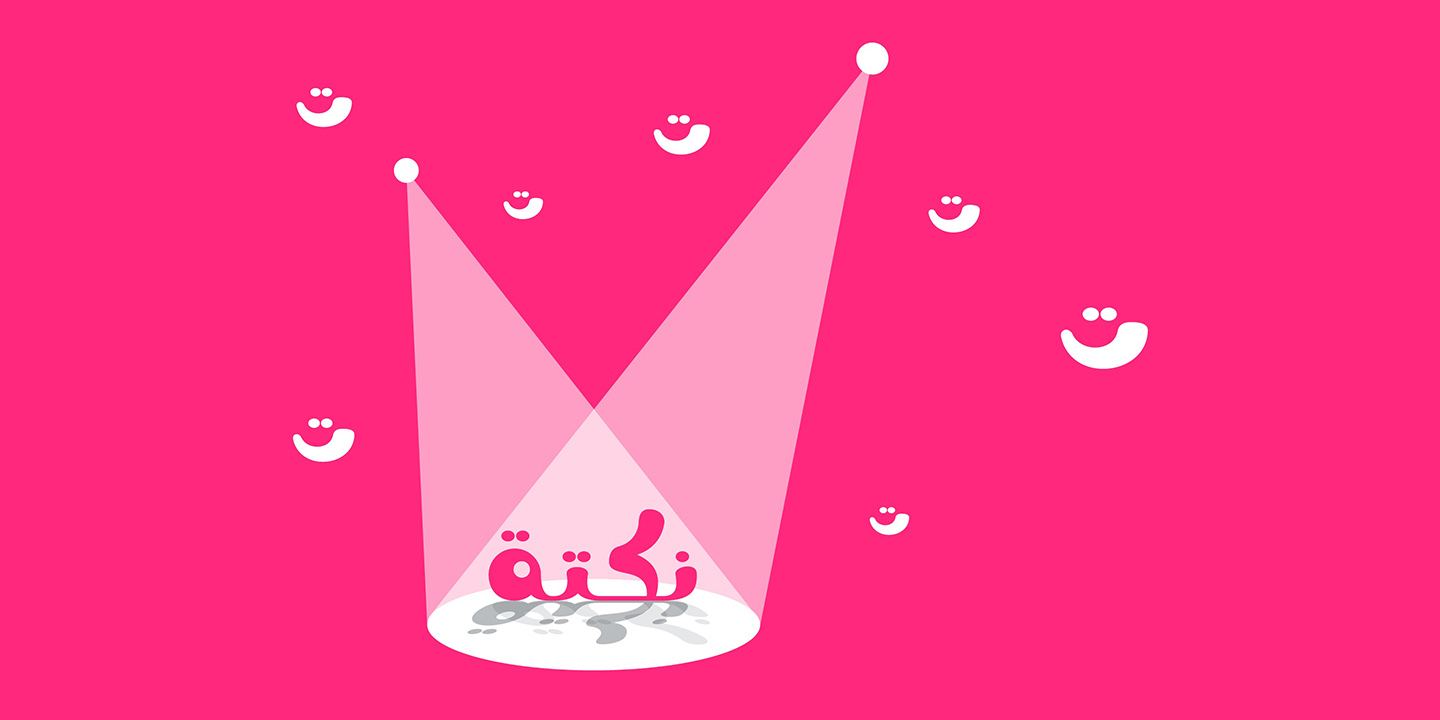
Nokta - Arabic font
Nokta - Arabic font is a brush display font family published by Mostafa Abasiry.
Nokta (the Arabic word for ‘Joke’) is an Arabic display font with humorous letterform design that suits a various range of creative projects such as web , print and mobile applications. Nokta Supports Windows and macOS.
Style Brush Display